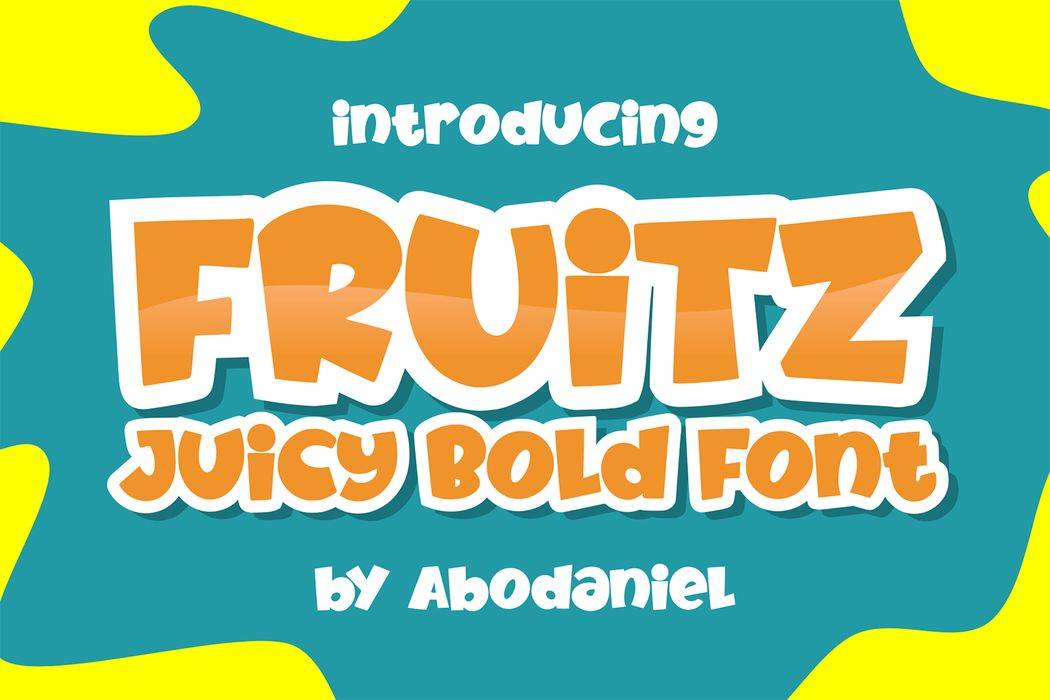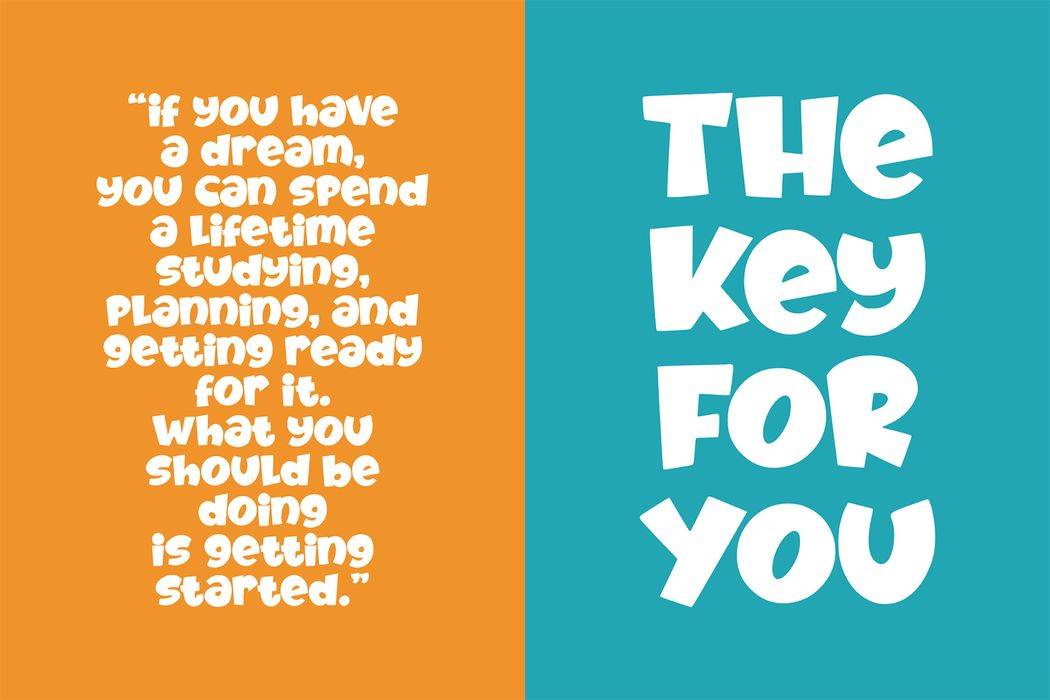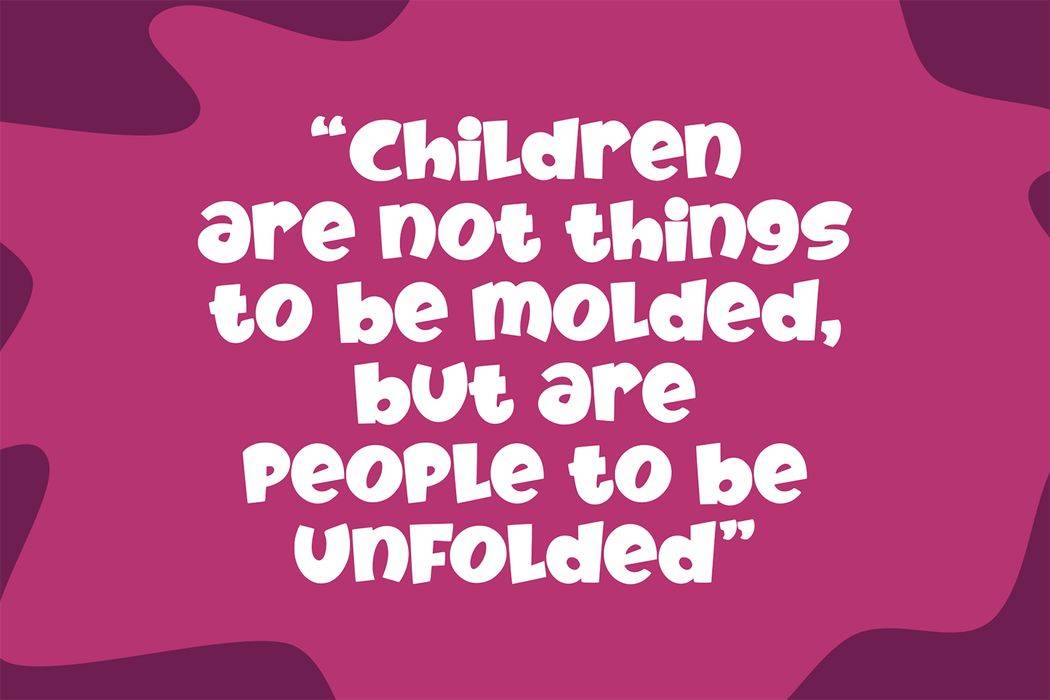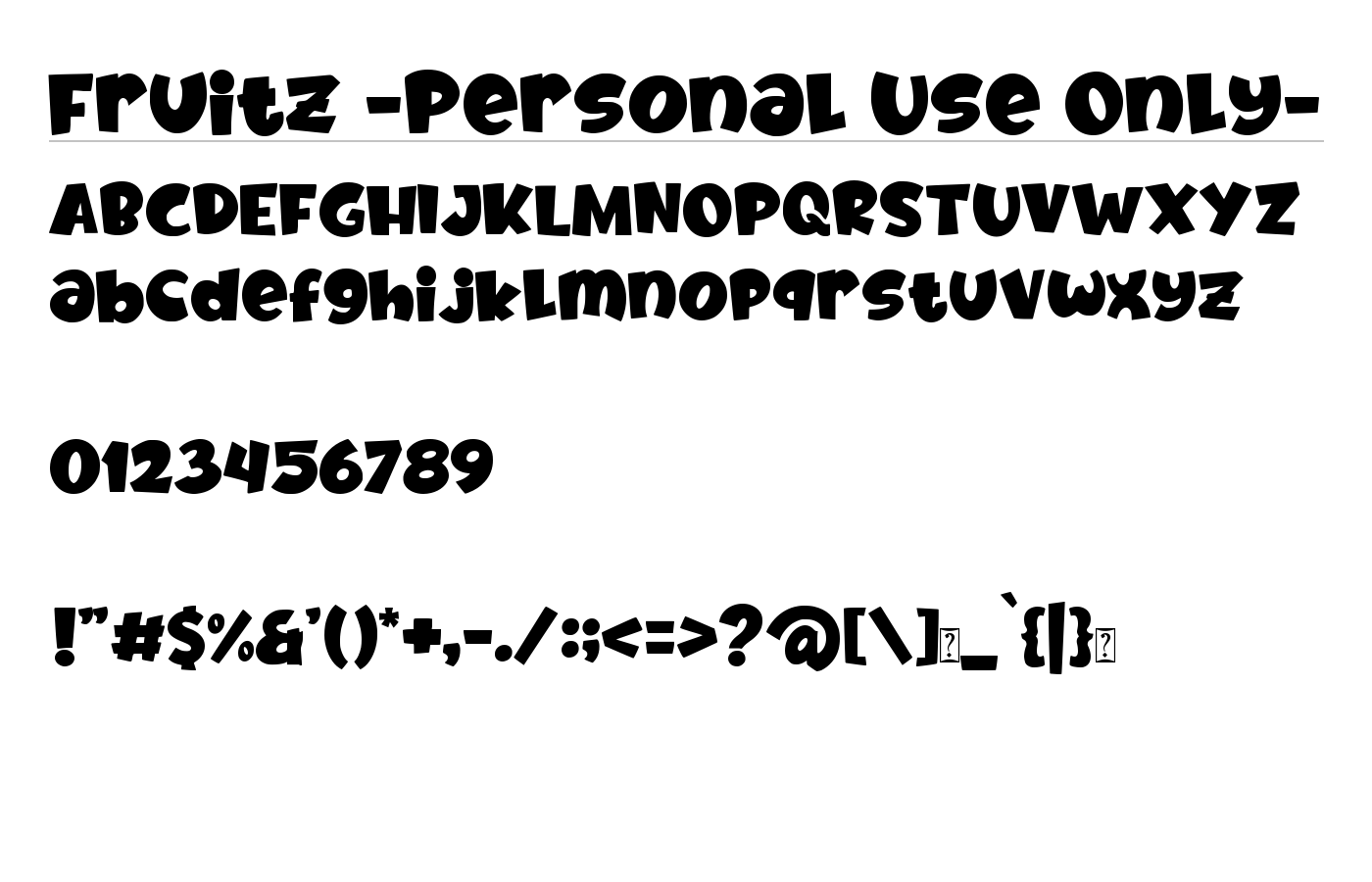
Fruitz is a bold, playful sans serif typeface with a chunky, slightly irregular design that gives it a fun, animated personality. Its rounded, thick strokes and friendly letterforms make it perfect for casual, vibrant branding, children's projects, and attention-grabbing headlines where a lighthearted, energetic mood is desired. Fruitz works well in contexts that want to convey approachability and creativity, such as posters, logos, and playful editorial layouts.